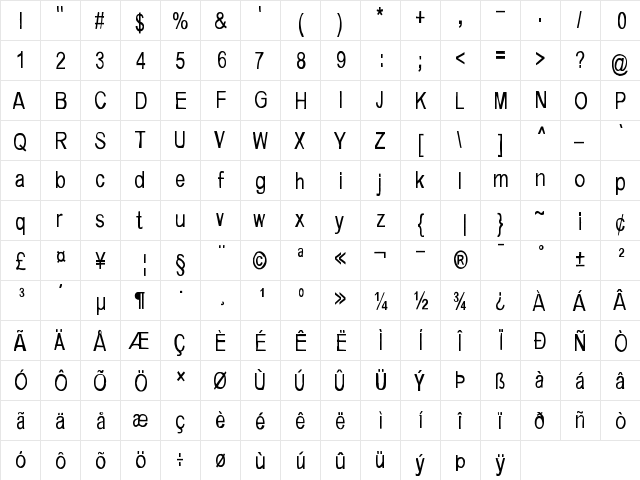
Music for empty apartments Regular
Design Context for Music for empty apartments Typeface
Music for empty apartments offers clean, dependable letterforms without strong stylistic allegiance, making it a practical choice for designers who need flexibility.